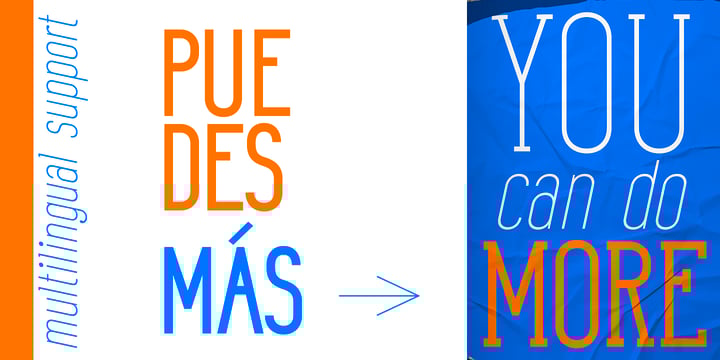
Senar
by Larin Type Co
The Senar Font Family was designed by Pavel Larin and published by Larin Type Co. Senar contains 20 styles and family package options.
Senar is a great font family that includes 20 fonts ( Slab serif - 5 weights upright and 5 weights oblique, Sans serif - 5 weights upright and 5 weights oblique ).
It is a modern, versatile and easy-to-read font that is perfect for a wide range of design solutions, such as logos, branding, label, packaging, web titles, text descriptions, as a primary or secondary, and much more.